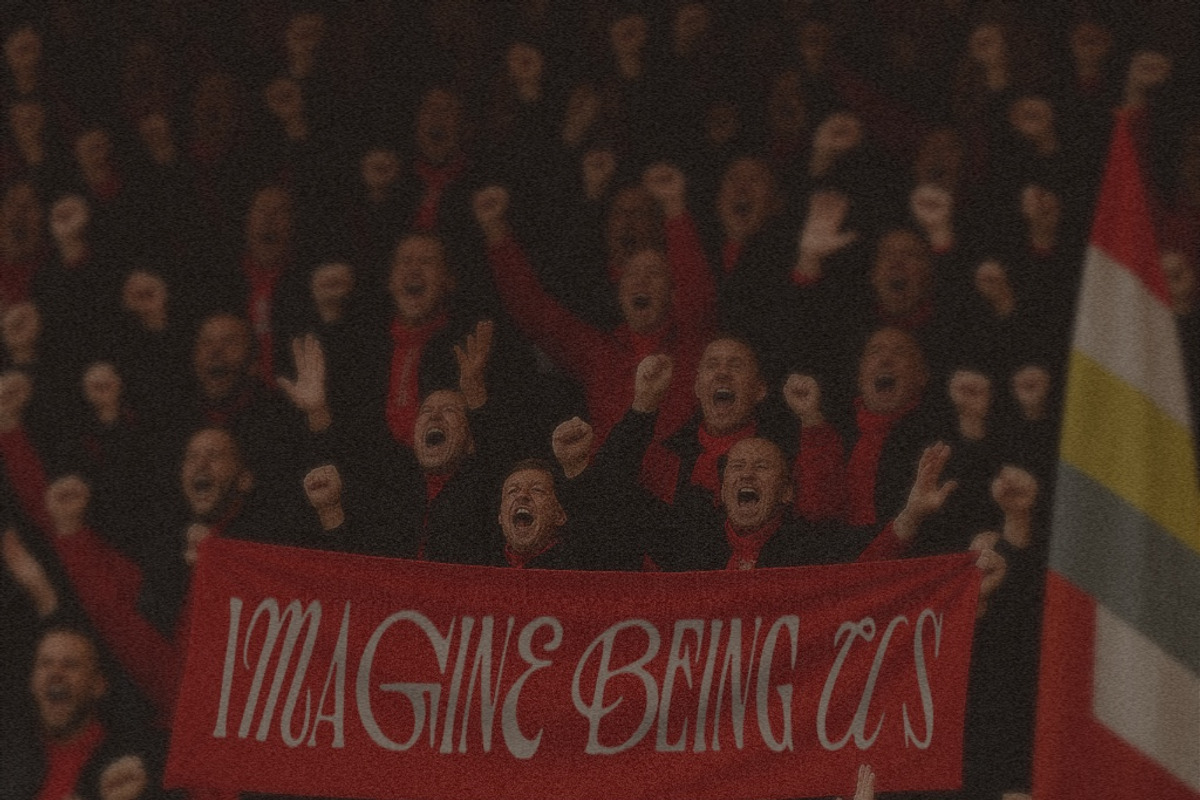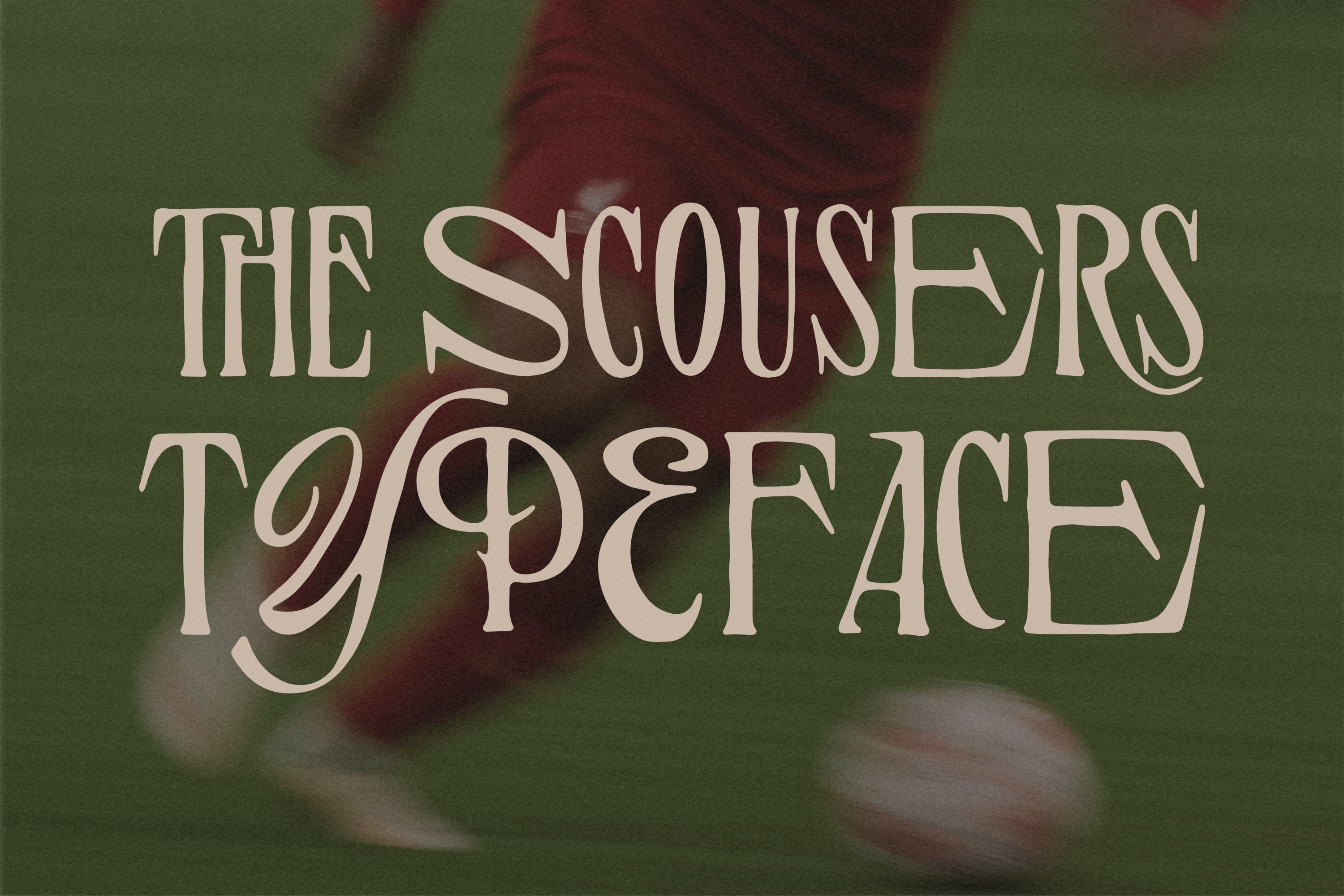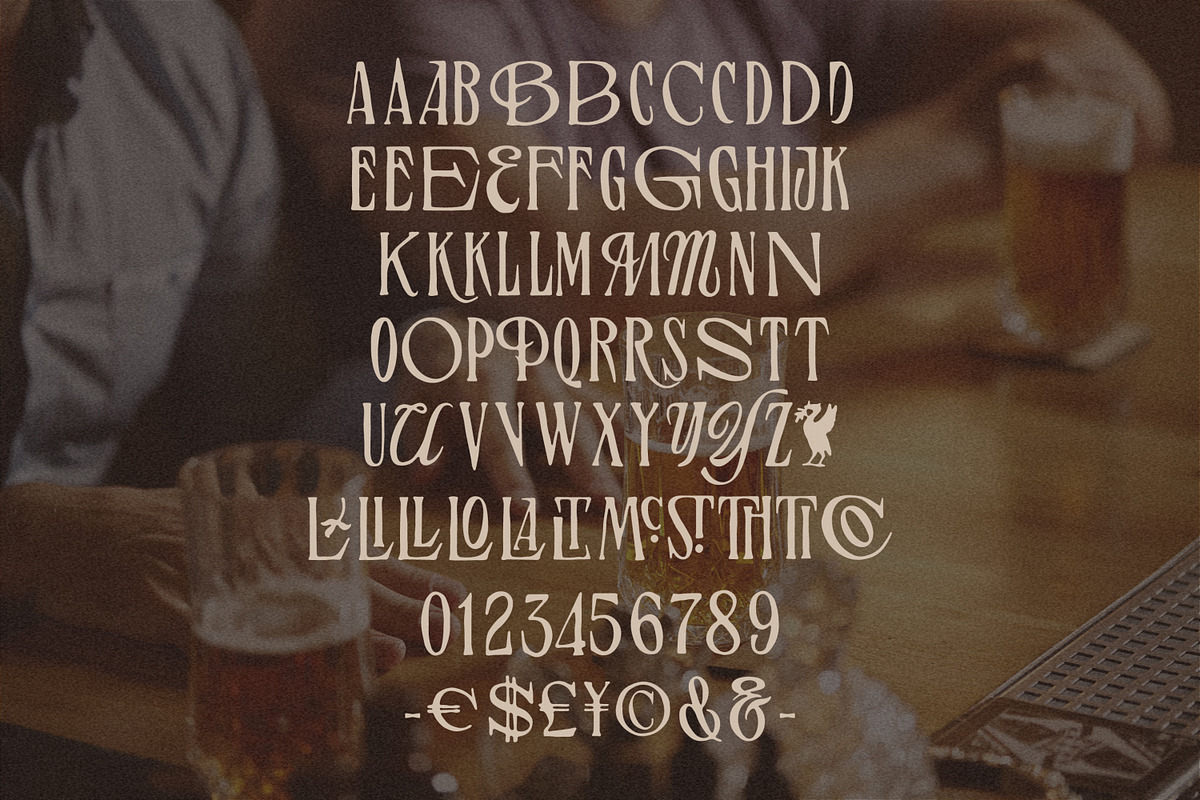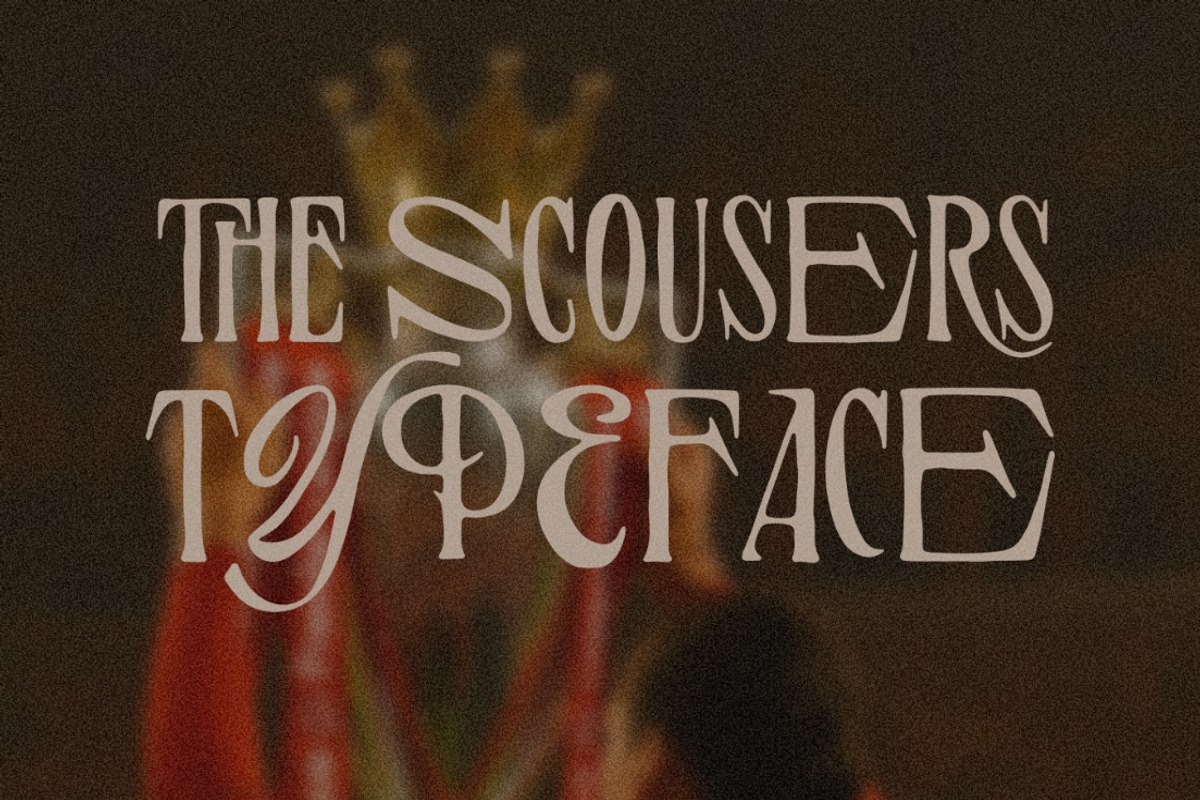
THE SCOUSERS TYPEFACE
INTRODUCING
THE SCOUSERS TYPEFACE. Is a font inspired by Lfc fans Culture. Very fit and easy to make your awesome product, create label design, logo design, badge design, t-shirt design, posters, greeting cards, letterheads or anything looks like vintage and hand drawn vibes. Also you will get some random illustrations and some editable badge designs. Hope you like it!